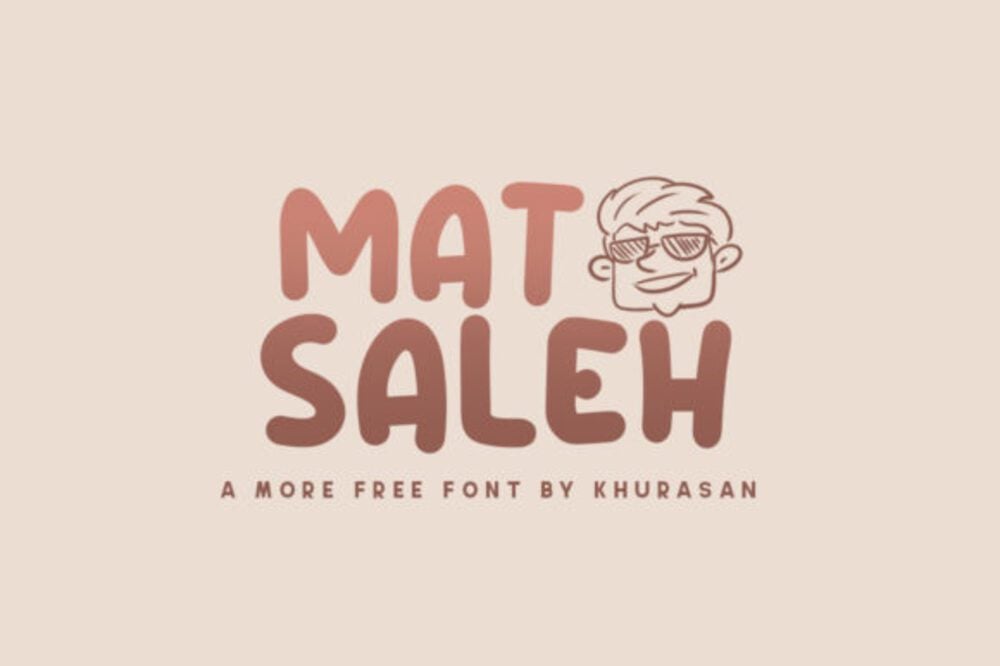
Mat Saleh Font
Mat Saleh is a bold and expressive font inspired by cultural fusion and modern artistry. Featuring clean lines with a hint of rustic charm, it’s perfect for branding, logos, packaging, and creative projects seeking a distinctive flair. This versatile typeface blends tradition with contemporary design, offering a unique personality that captures attention while maintaining elegance and readability in any application.